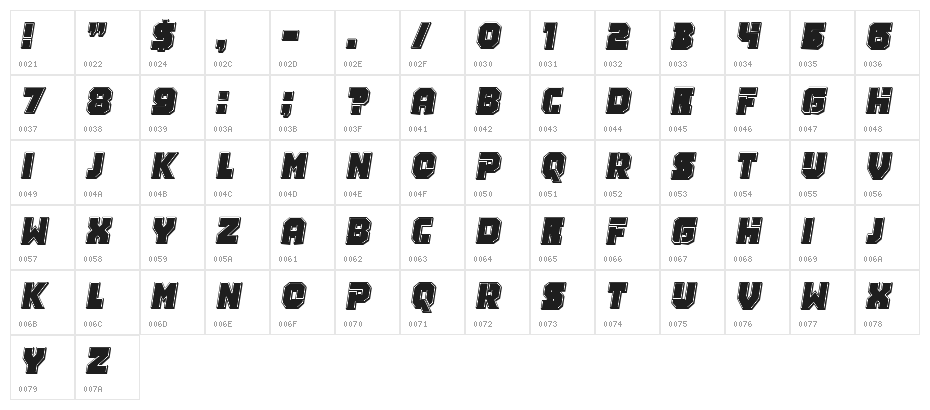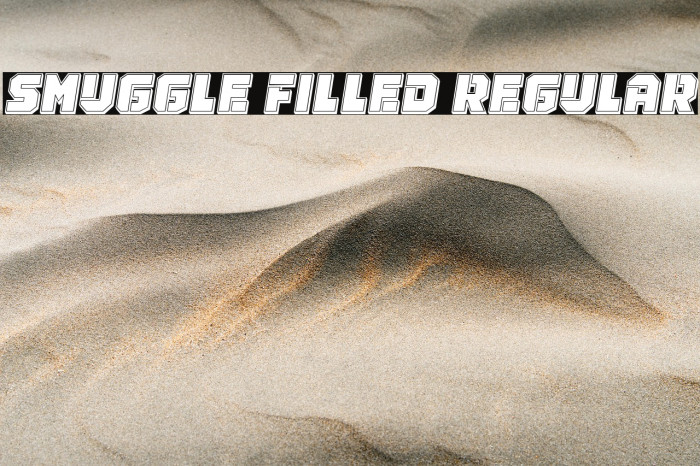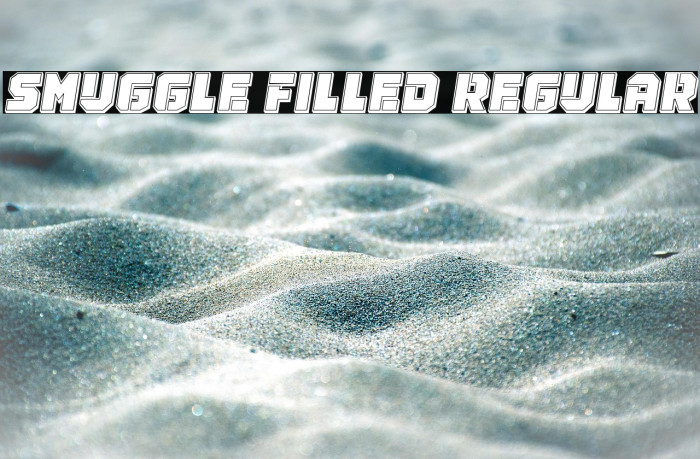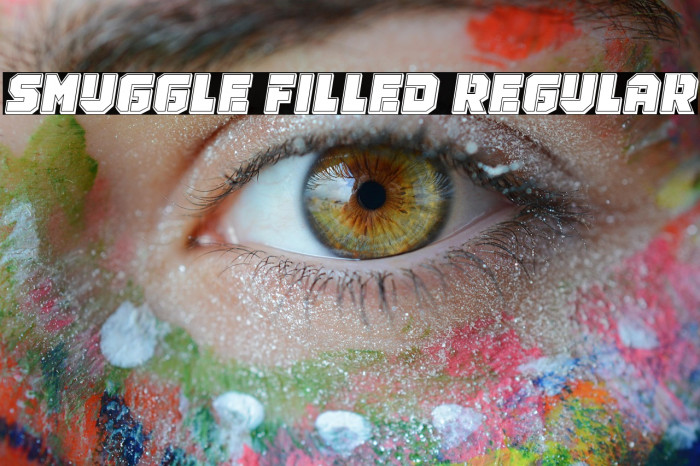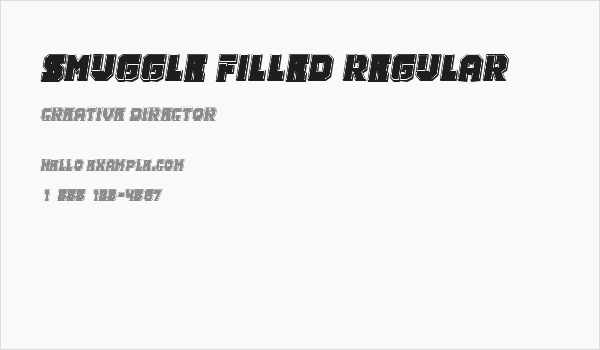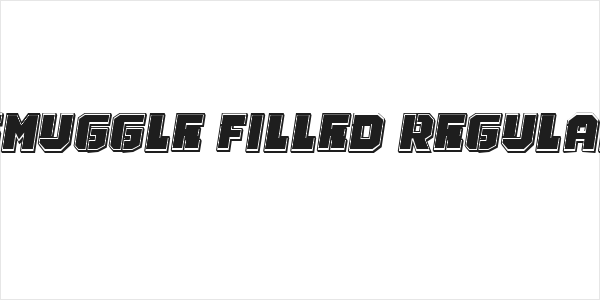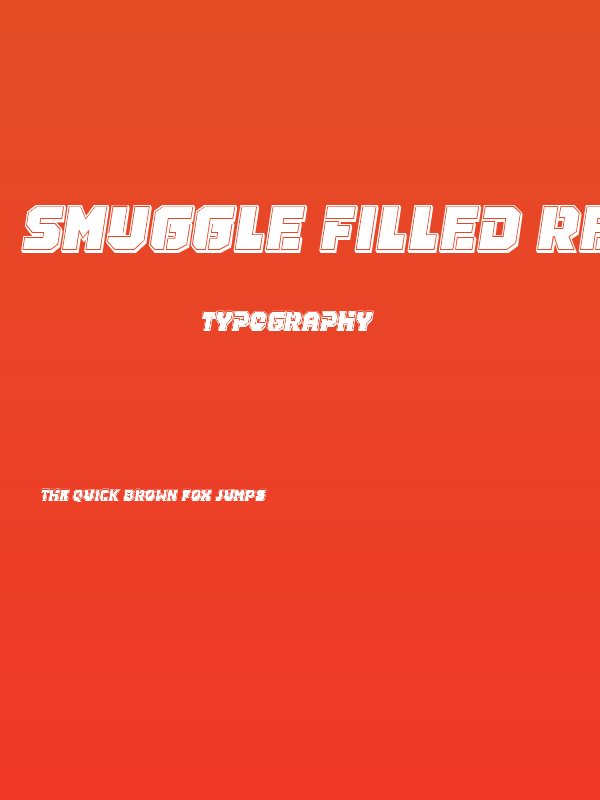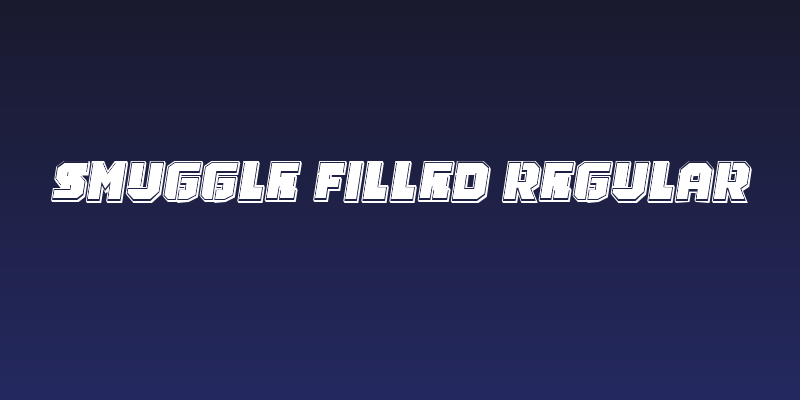
Smuggle Filled Regular Font
Smuggle Filled Regular Description
This font features a bold, geometric design with a strong, impactful presence. The characters are filled with solid black and outlined with a thick white border, creating a striking contrast that enhances readability and visual appeal. The angular, blocky shapes give it a modern and futuristic look, making it ideal for attention-grabbing headlines or titles. The uniformity in the design of both uppercase and lowercase letters, as well as numbers and special characters, ensures consistency across different uses. Its boldness and distinct style make it suitable for projects that require a strong visual identity.
| Proposed Projects | Ideal for branding, posters, video game graphics, and any project needing a bold, modern look. |